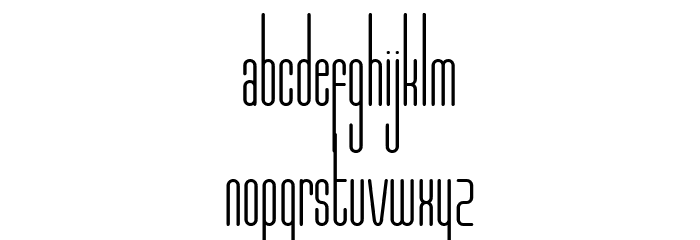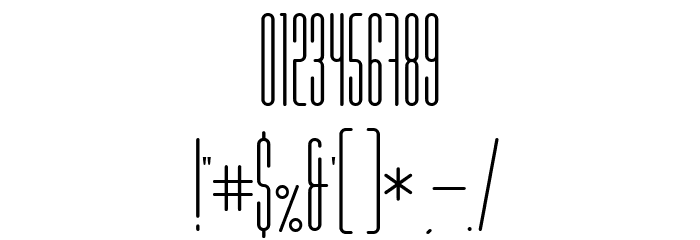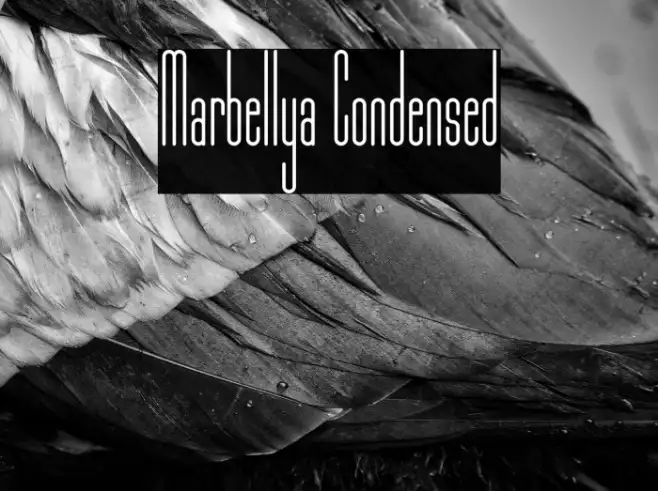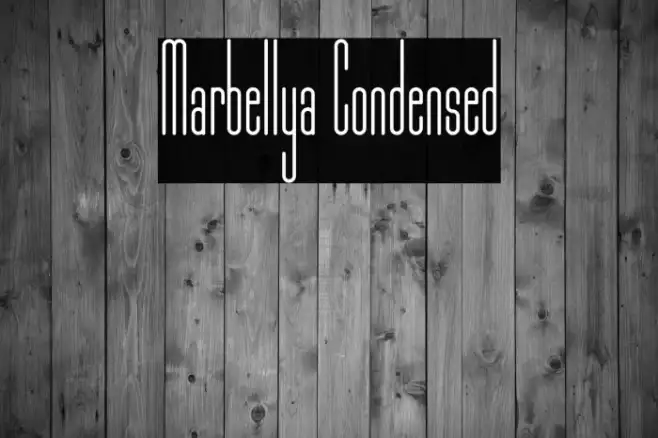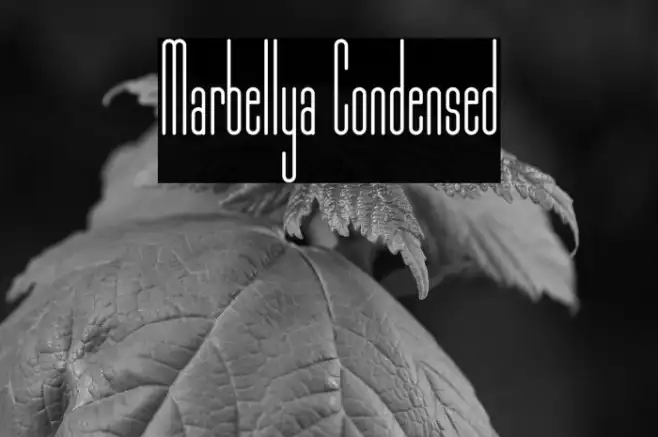
Marbellya Condensed Font
This font features a tall, narrow design with a distinctly modern and elegant appearance. The characters are elongated, giving a sense of height and sophistication. The vertical strokes are consistent in width, creating a uniform look across all letters. The font maintains a clean and minimalist aesthetic, with minimal embellishments, making it suitable for contemporary design projects. Its condensed form allows for efficient use of space, making it ideal for headlines or titles where space is limited. The numerals and special characters are designed to match the overall style, ensuring a cohesive look.
A tall, narrow, and modern font with a clean, minimalist aesthetic.
- Font: Marbellya Condensed
- Proposed Projects: Ideal for fashion magazines, luxury branding, modern posters, and elegant invitations.
- Category: Sans-Serif
- Character Spacing: Tight